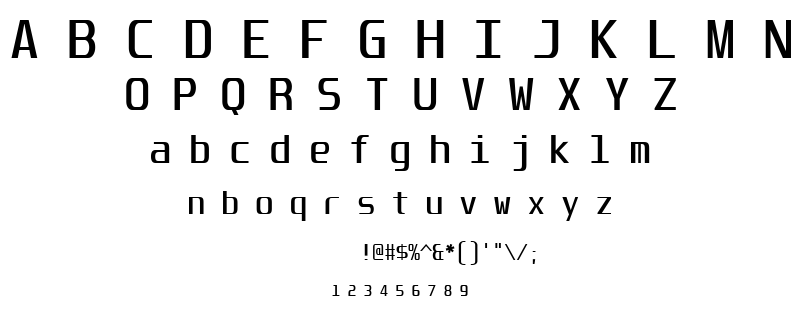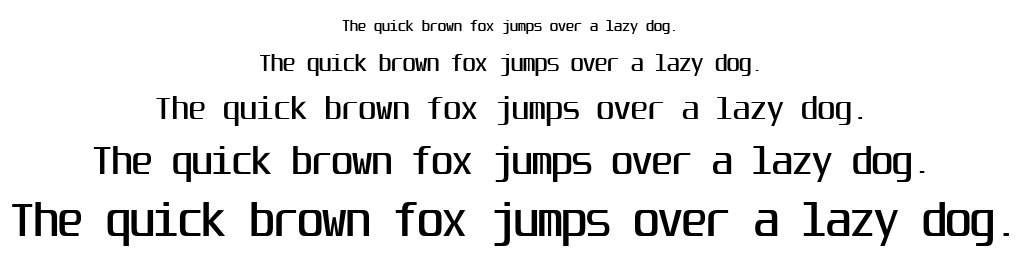
Duality is a rugged, condensed display font with class based kerning, math symbols, fractions and numeric ordinals. Don’t forget to read the files inside the zip for details. Updated in 2012.